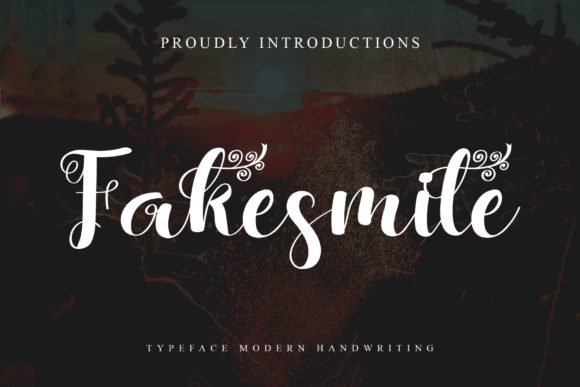
Bring a Touch of Whimsy to Your Designs
You’ve spent hours pouring your heart and soul into a design project, and it’s finally coming together. But there’s something missing – a certain je ne sais quoi that will elevate it from good to great. That’s where the Fake Smile Font comes in – a beautifully elegant handwritten font that adds a touch of whimsy and personality to your work.
This lovely font features additional swishes that will bring a loving touch to your craft or design project. Whether you’re creating a wedding invitation, a birthday card, or a logo, Fake Smile Font is sure to add a unique and charming element. And with its PUA encoding, accessing all the glyphs and swashes is a breeze.
Fake Smile Font Key Features
- Font Family: Fake Smile Font, a unique and stylized font designed to convey a sense of irony or detachment.
- Unique Characteristic: The Fake Smile Font features a distinctive, stylized smile that can be used to convey a sense of sarcasm or irony, adding a touch of humor or whimsy to designs.
Designer Review: Fake Smile Font
Overall, I think the Fake Smile Font has some interesting qualities, but it falls short in a few areas.
- Unique aesthetic: The font has a quirky, hand-drawn feel that sets it apart from more traditional fonts.
- Good for creative projects: The font’s playfulness makes it well-suited for projects that require a lighthearted or humorous tone.
- Lack of legibility: At smaller font sizes, the letters can become difficult to read due to the font’s intricate details.
- Limited font weights: The font is only available in a few weights, which can make it difficult to achieve the desired level of emphasis or hierarchy.
- Not suitable for body text: The font’s uniqueness is better suited for headings or titles, rather than large blocks of body text.
The Fake Smile Font is a fun and creative option for designers looking to add some personality to their projects. However, its limitations make it better suited for specific use cases rather than general-purpose use.
Fake Smile Font is commonly used in:
– Social media graphics to convey a playful or sarcastic tone.
– Advertising and marketing materials to add a touch of humor.
– Personal projects to express creativity and individuality.
Tips for Getting the Most Out of Fake Smile Font
To get the most out of Fake Smile Font, consider the following tips:
– Use it sparingly to avoid overwhelming the design.
– Pair it with other fonts to create contrast and visual interest.
– Experiment with different font sizes and styles to achieve the desired effect.